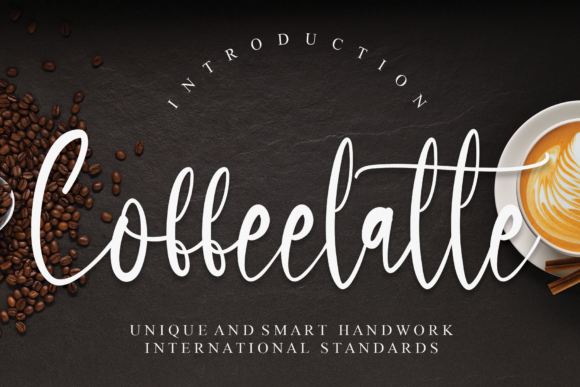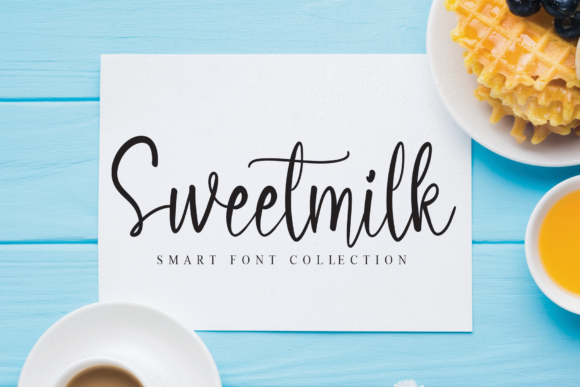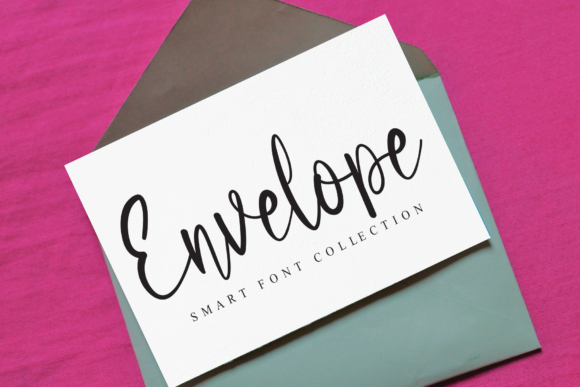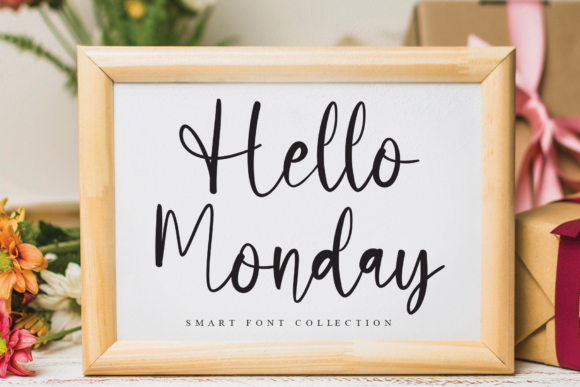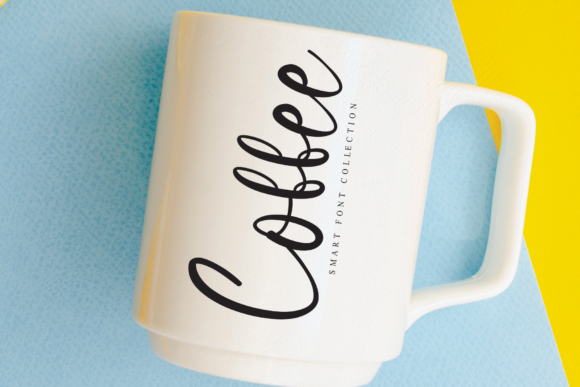
Coffeelatte Font
About Coffeelatte Font
Coffeelatte is an elegant handwritten font. Add it to your most creative ideas and notice how it makes them come alive!